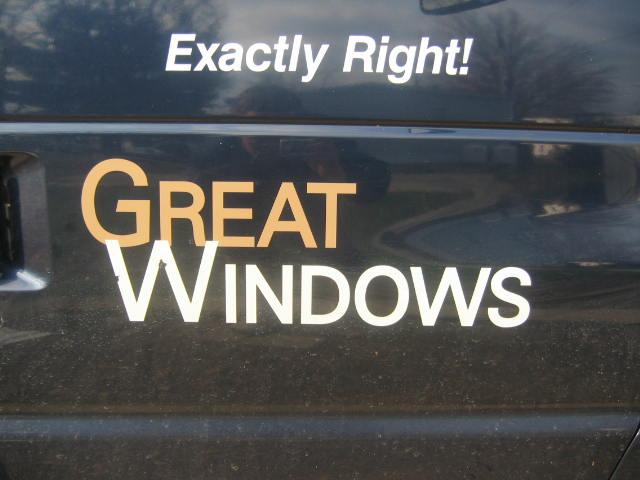
Font Id Please
Zurich, a secondary name local to my hardware, but the actual name eludes me. The 'Great Windows' is done in small caps.
Zurich is the closest thing that I could find,but its not exactly it.The G in great is different.The end of the g has that angle cut to it,it wouldnt be any trouble to alter the g but there is more text to this job that is the same font.